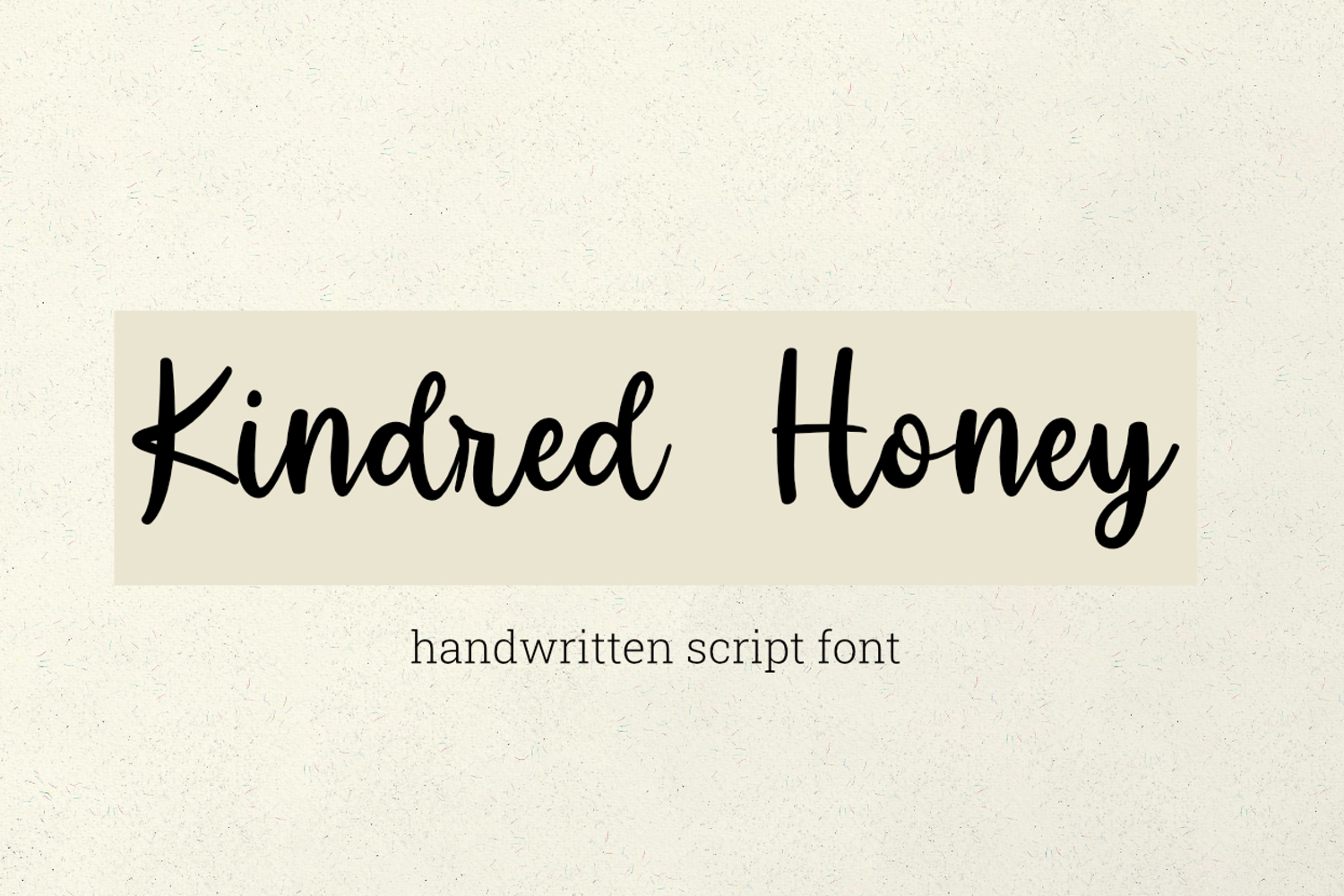
Kindred Honey is a handwritten script font.
This font is perfect for your craft projects, svg files, farmhouse designs, wedding decor, logos, quotes and more!